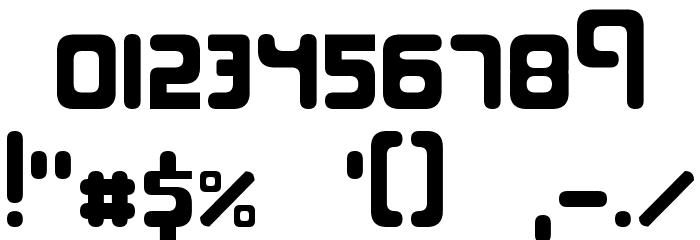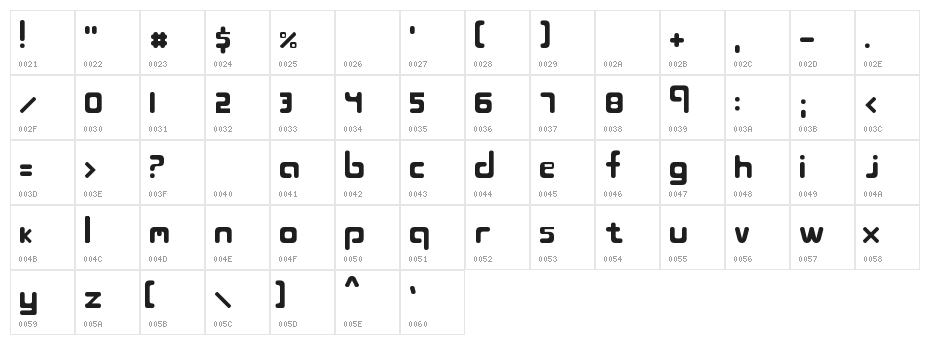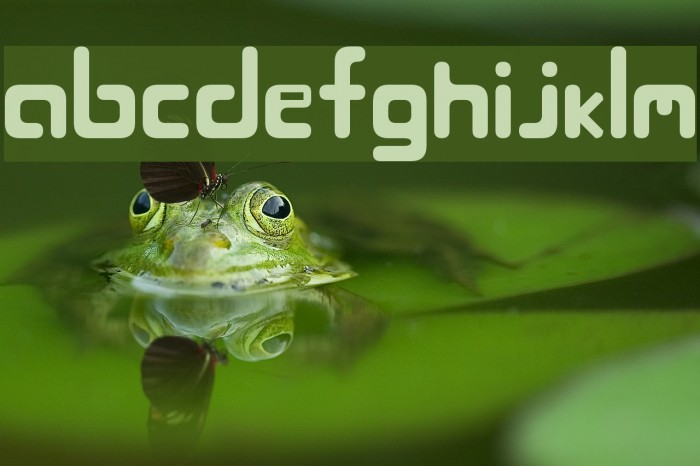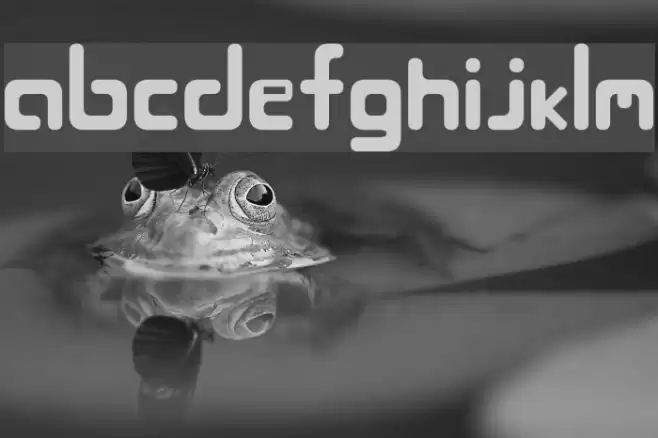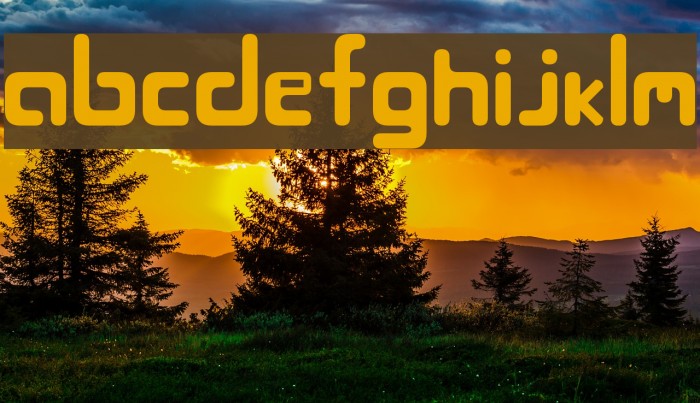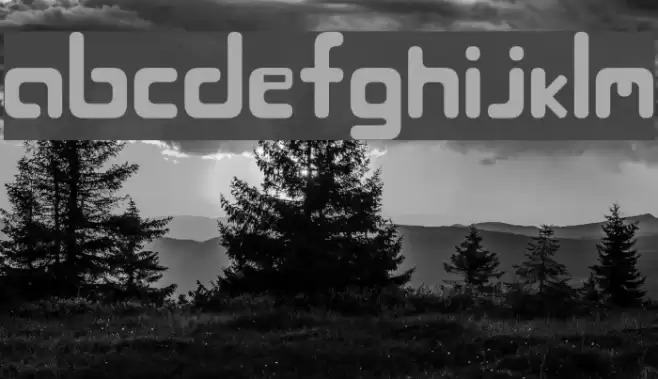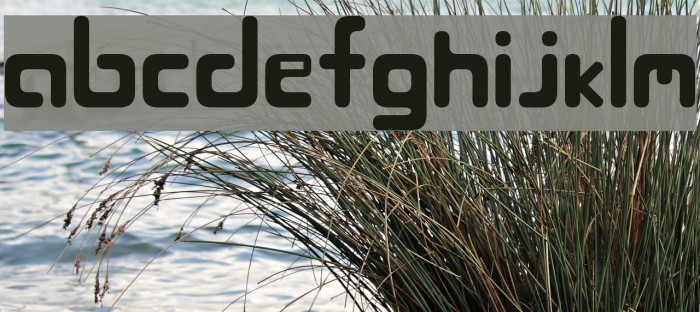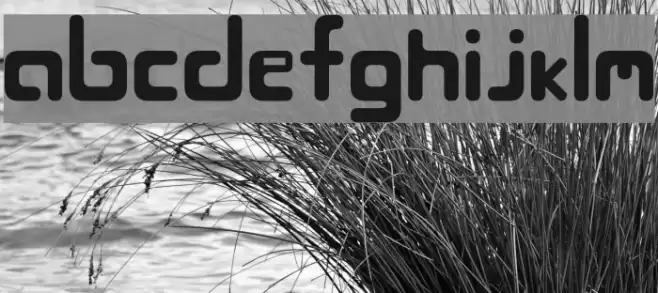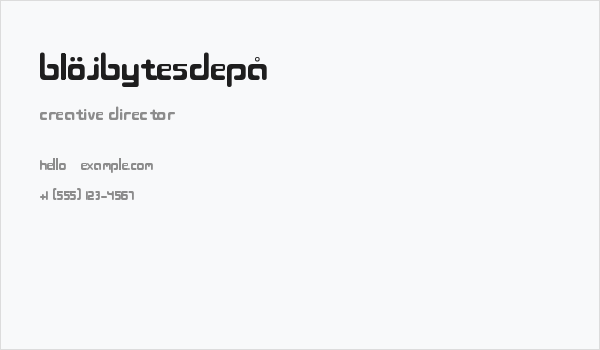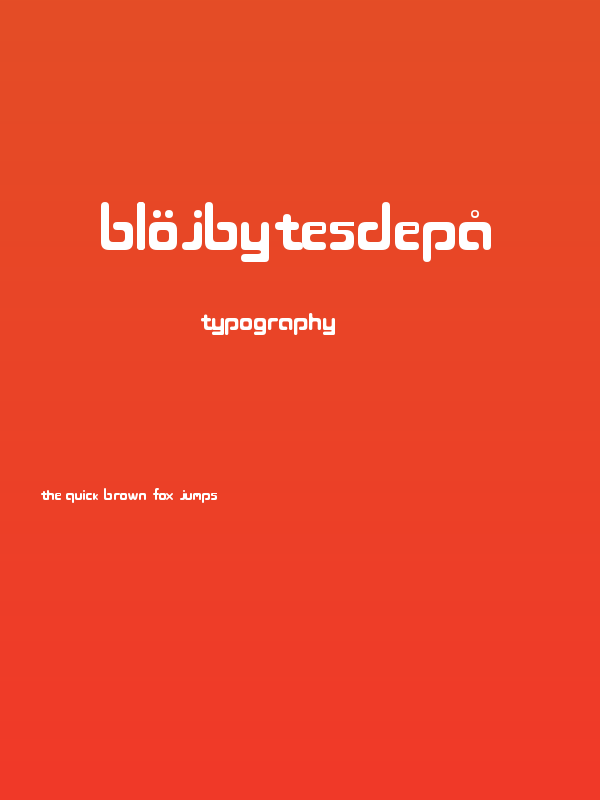
Blöjbytesdepå Font
Blöjbytesdepå Description
This font features a modern, rounded design with a playful and approachable aesthetic. Each character is crafted with smooth curves and consistent stroke widths, creating a harmonious and friendly appearance. The letters are slightly condensed, giving a compact feel while maintaining readability. The uniformity in the design makes it suitable for various applications, from digital interfaces to print media. The numbers and special characters follow the same rounded style, ensuring a cohesive look across all text elements.